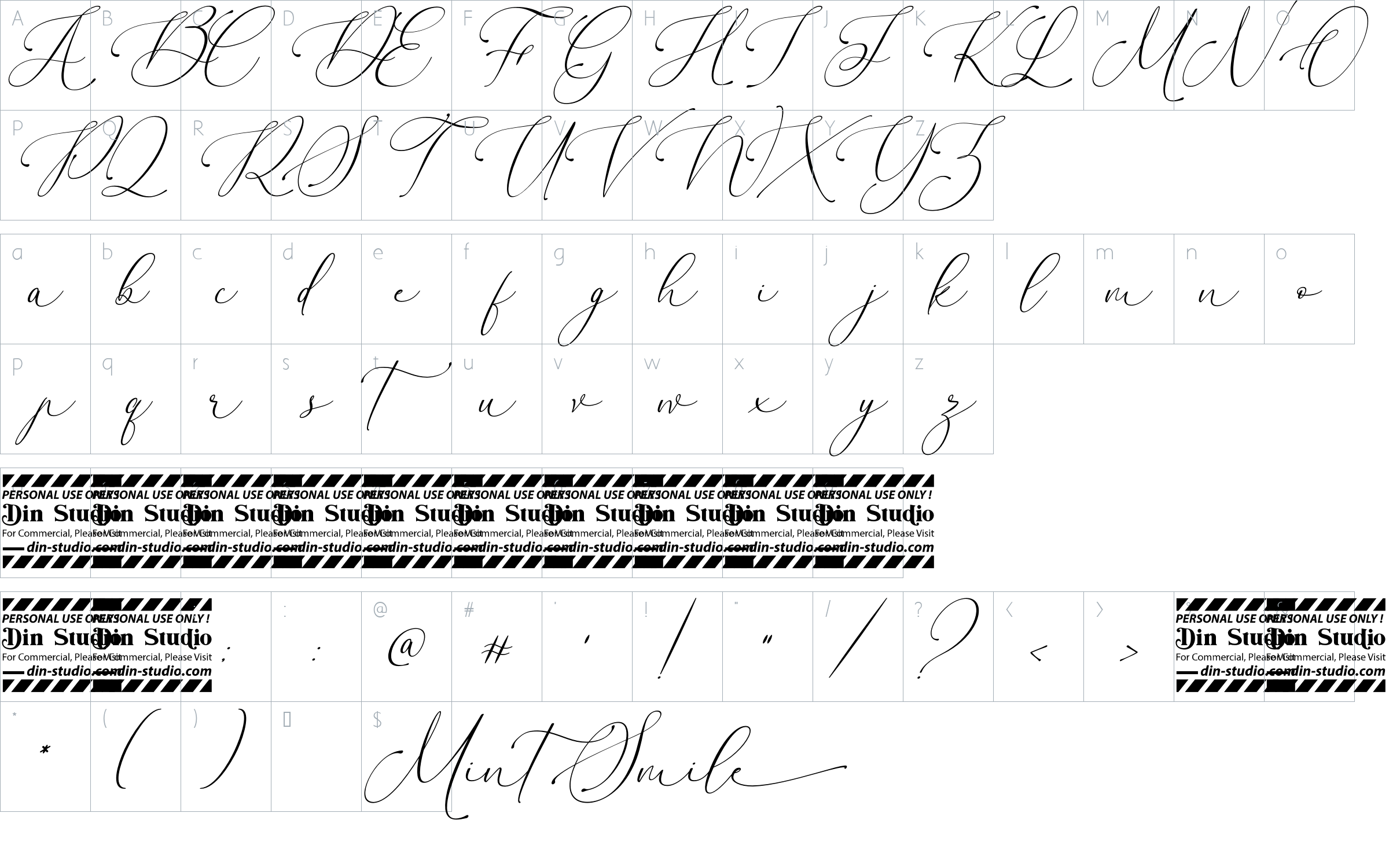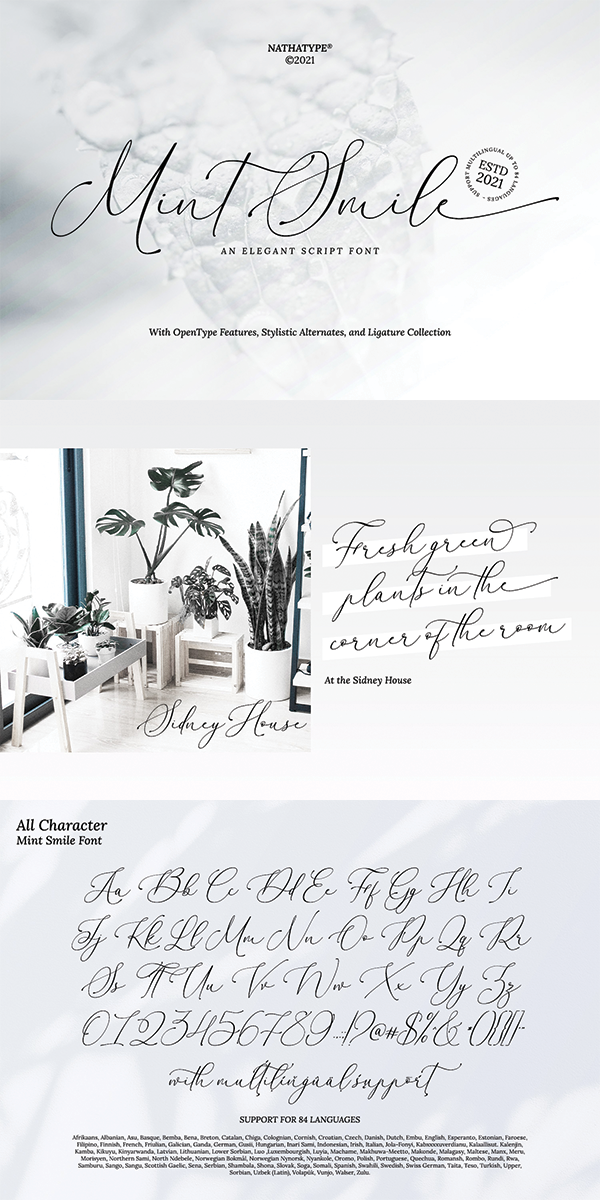
Mint Smile Font
About Mint Smile
Mint Smile-Script Font
Mint Smile is an fresh and modern script with a handmade calligraphy style. Perfect for adding a touch of whimsy to your already amazing designs. This font is perfect for branding projects, home appliance design, product packaging, use in business cards, invitation cards, etc. Simply as a stylish text overlay onto a background image or anything that requires a touch of elegance.
Our font always includes Multilingual Support to make your branding reach a global audience. Inspire your audience, clients, or guests with this beautiful, statement font.